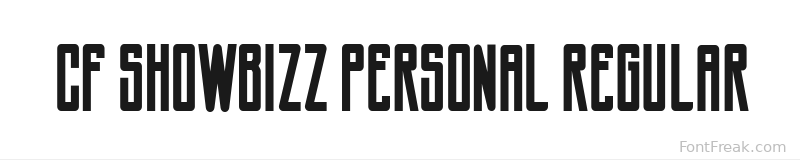
CF Showbizz PERSONAL Regular
CF Showbizz PERSONAL Regular is a striking display font from Cloutierfontes that is perfect for those looking to make a bold statement. As a decorative typeface, it features a unique blend of thick and thin strokes that create a playful yet sophisticated appearance. The font's heavy weight provides a commanding presence, making it ideal for attention-grabbing headlines. Its strong contrast and geometric forms allow for easy readability, even at larger sizes, while the generous spacing between characters adds to its overall legibility.
This font is particularly versatile, making it suitable for a variety of creative projects. It shines in applications such as movie posters, where its standout style can capture the essence of the film. Additionally, it can enhance the visual appeal of restaurant menus, giving them a contemporary edge that draws diners in. Wedding invitations also benefit from the font's unique flair, adding a personal touch that sets the tone for special occasions. For graphic designers and content creators, CF Showbizz PERSONAL Regular font free download is a valuable resource for adding character to branding materials and promotional graphics.
The target audience for this font includes graphic designers, small business owners, and anyone in need of a distinctive typeface to elevate their projects. The font's playful yet professional demeanor makes it an excellent choice for those who want to stand out without compromising on style.
What truly makes CF Showbizz PERSONAL Regular remarkable is its ability to blend boldness with elegance, creating a dynamic visual experience. Its unique design elements and versatility make it an outstanding choice for various creative endeavors, ensuring your work captures attention and leaves a lasting impression.